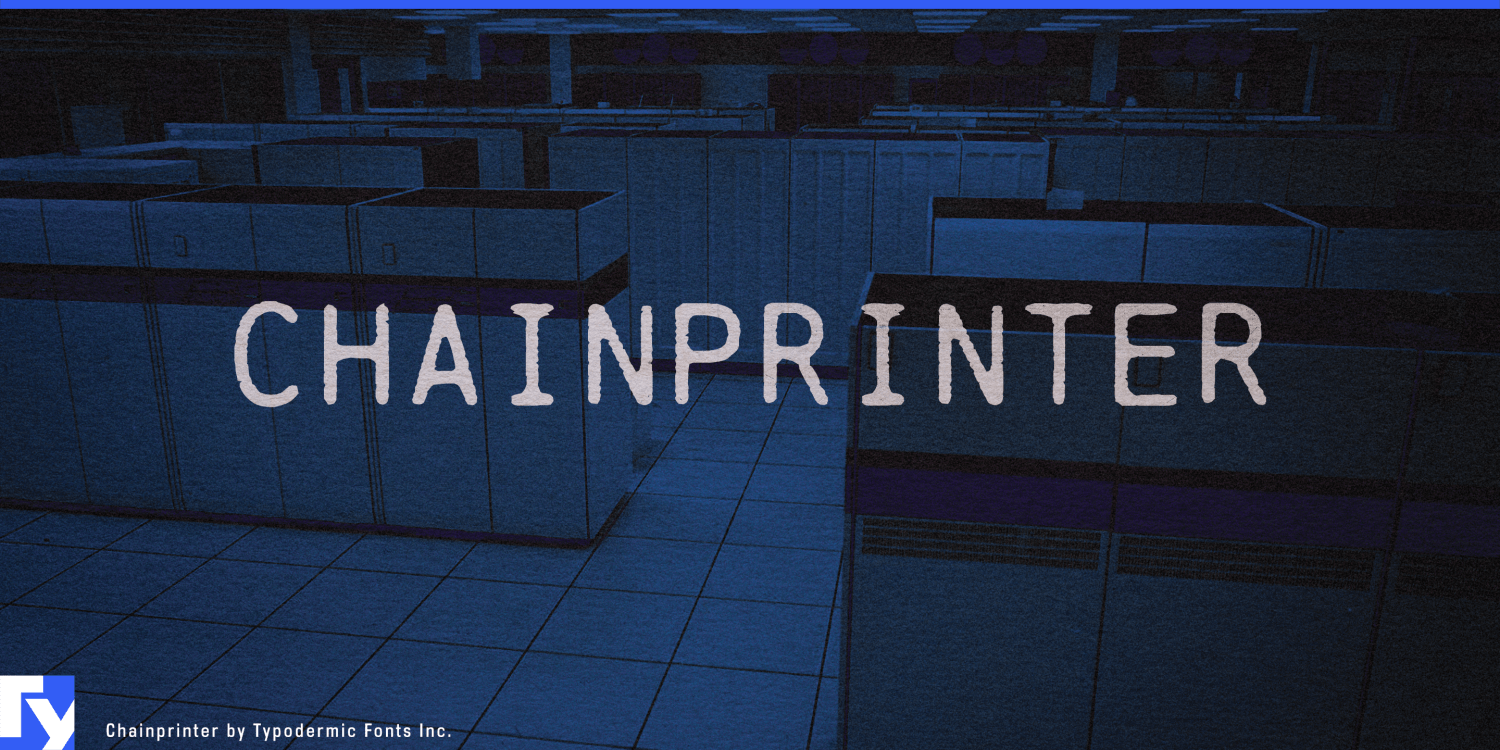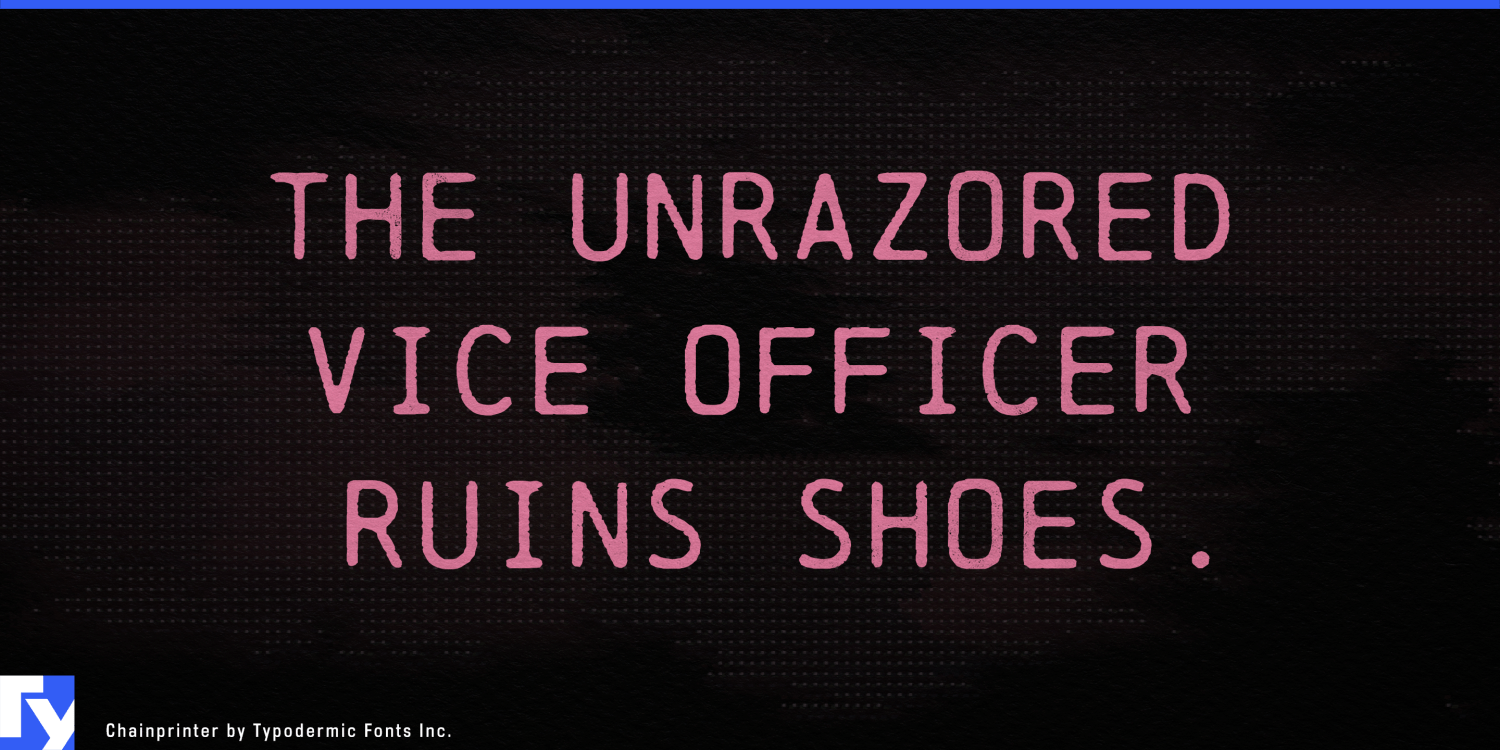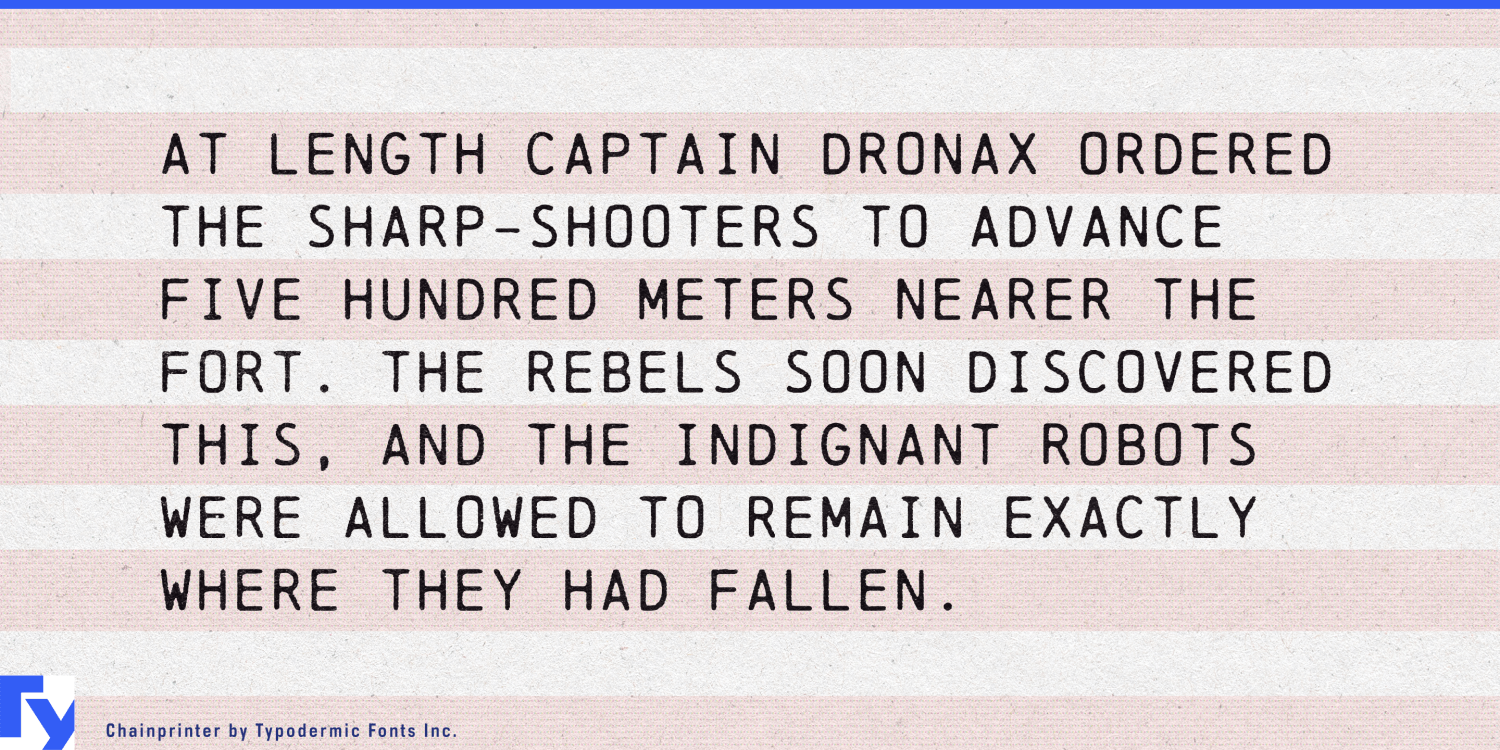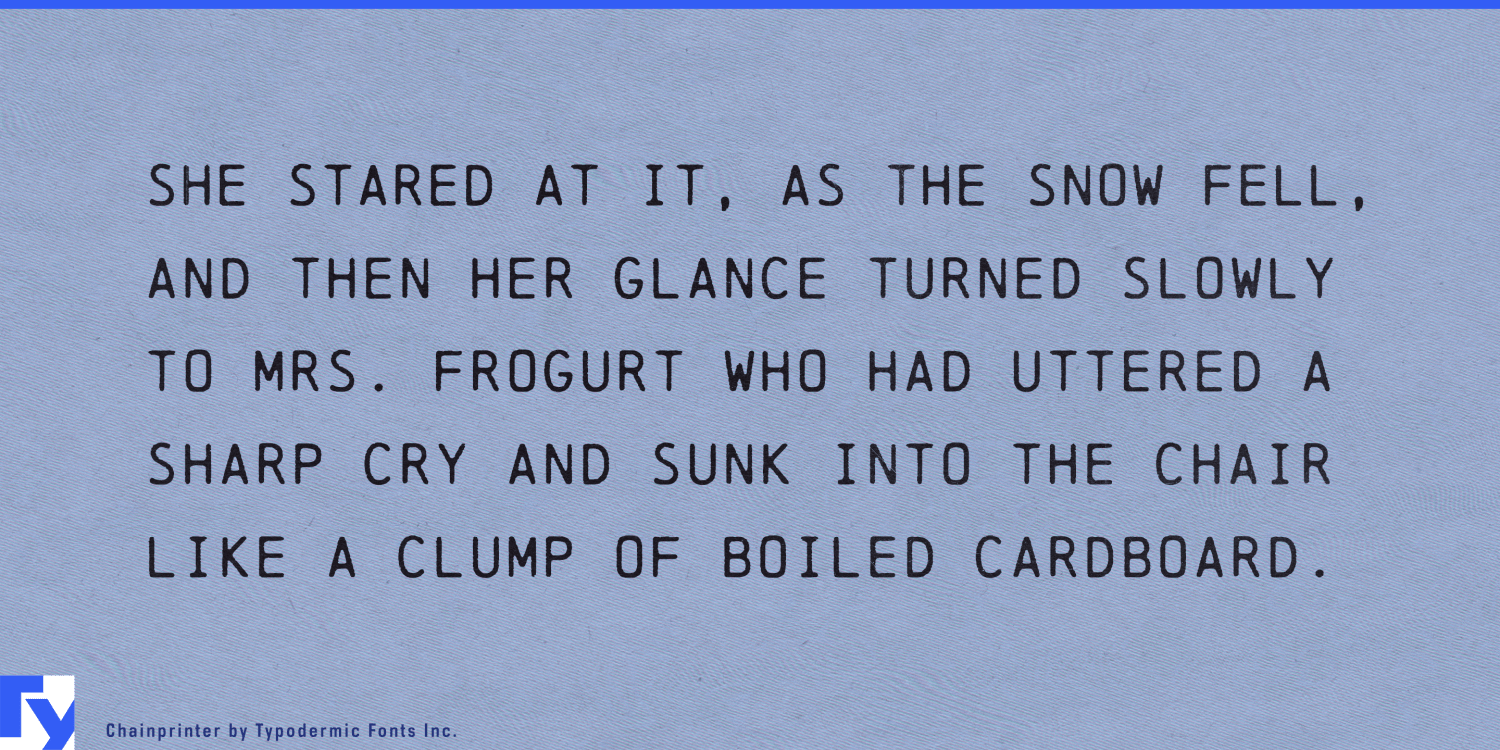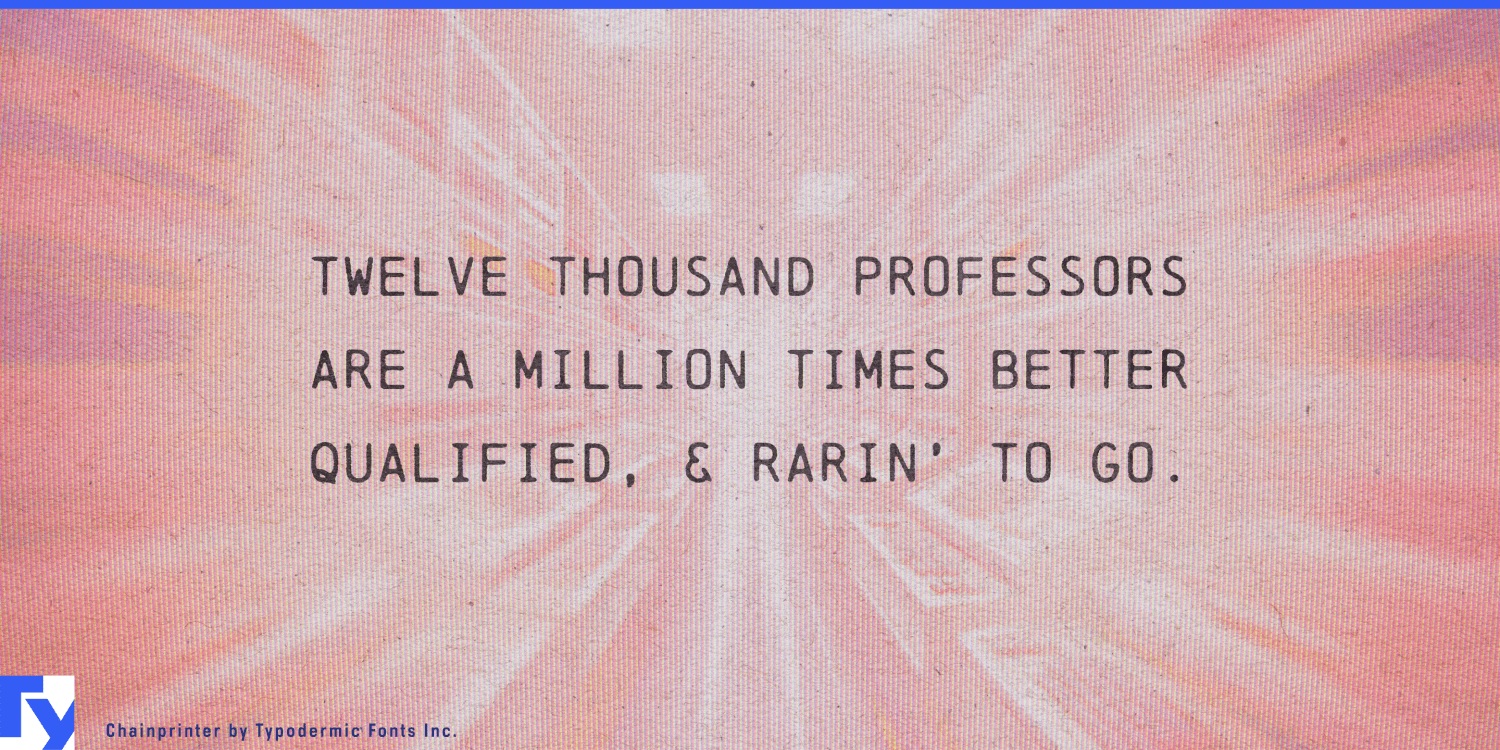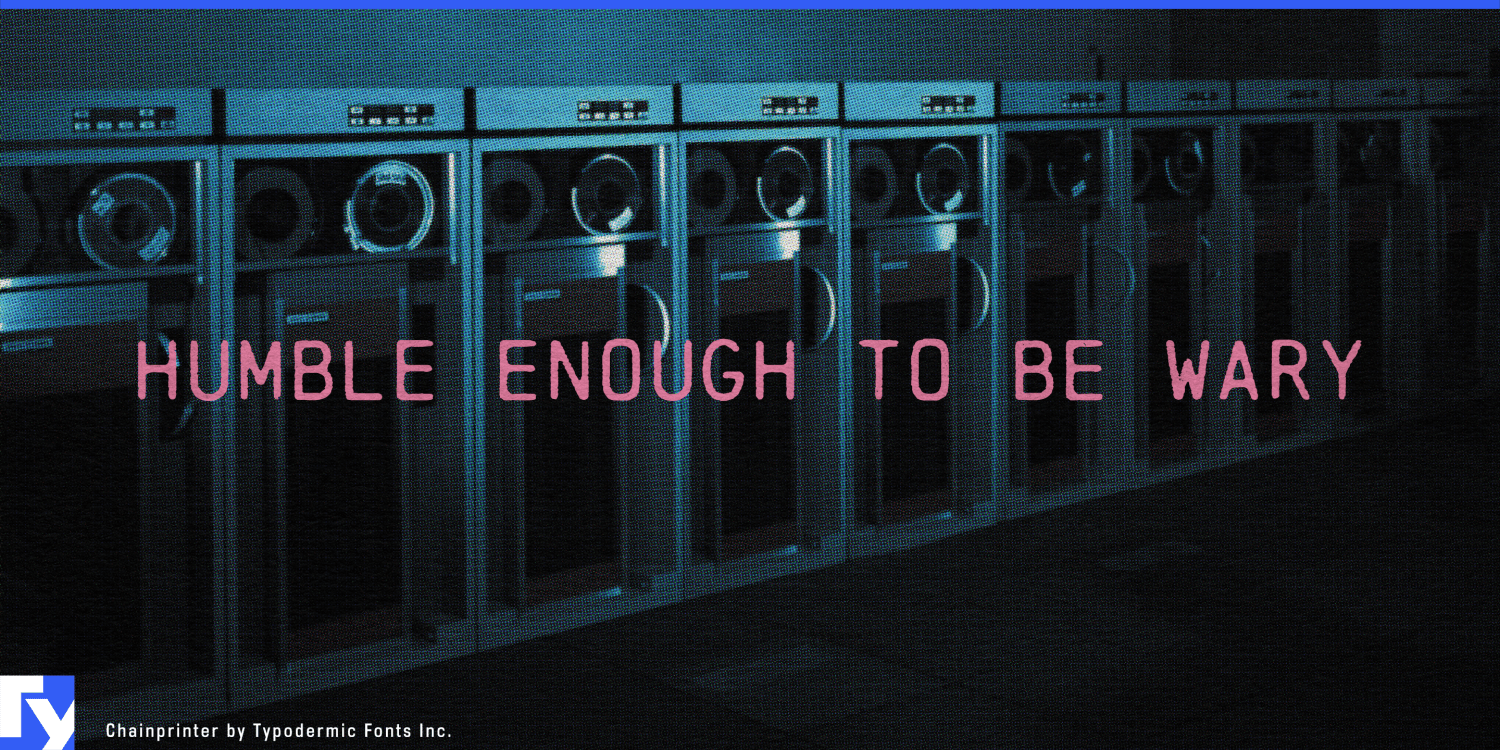
Chainprinter
Font Family by Typodermic
Chainprinter comes from an era when computer output arrived on paper and announced itself from across the room. High-speed chain printers drove rows of characters past an ink ribbon while hammers struck the sheet from behind, turning vast quantities of data into stacks of tightly spaced uppercase text. Chainprinter preserves the look of that output: narrow monospaced capitals, softened corners, uneven ink, and the small distortions left by machinery working quickly rather than delicately.
The wear is built into the letterforms themselves. Chainprinter doesn’t look like a clean computer font covered with a generic distress texture; its edges have the rounded, slightly battered quality of characters repeatedly transferred through ribbon and paper. The result is rough enough to carry a sense of age, but controlled enough for bylines, captions, credits, dates, specifications, and short passages.
That balance makes Chainprinter a useful companion to more aggressive distressed display faces. A conventional sans can look too polished beneath a weathered headline, while another heavily damaged font may leave the entire layout fighting for attention. Chainprinter continues the mechanical texture at a quieter level, keeping supporting information legible without breaking the atmosphere.
Its compressed capitals are particularly suited to denim, workwear, and streetwear. On a jeans patch, hangtag, garment label, size panel, or limited-edition drop card, Chainprinter has the character of a model number stamped into an old manufacturing record. It works naturally with lot codes, fabric specifications, production dates, serial numbers, and compact blocks of utility copy.
Chainprinter can also provide the informational layer in espionage, surveillance, and conspiracy-themed design. Intelligence files, interview transcripts, evidence labels, personnel records, and classified-project graphics benefit from lettering that appears to have been processed by an institution rather than composed for decoration. A typewriter face suggests one operator preparing a document at a desk; Chainprinter suggests a system producing records by the thousand.
That institutional quality carries into contemporary cybersecurity and data-privacy graphics. Incident reports, threat-intelligence materials, fictional breach records, security-conference identities, and investigation-game documents can use its paper-based computing aesthetic as an alternative to the familiar green terminals, pixel fonts, and digital glitches.
For historically minded work, Chainprinter belongs to the mainframe room rather than the home computer desk. It suits computer-history exhibits, Cold War research documents, early artificial-intelligence stories, laboratory records, and period props for film, television, games, and escape rooms. Its all-caps design is part of that identity; for a cleaner interpretation of the same mechanical idea with uppercase and lowercase, its sibling Linefeed provides the full-case alternative.